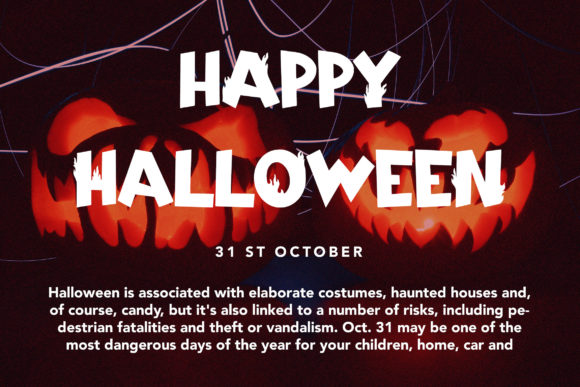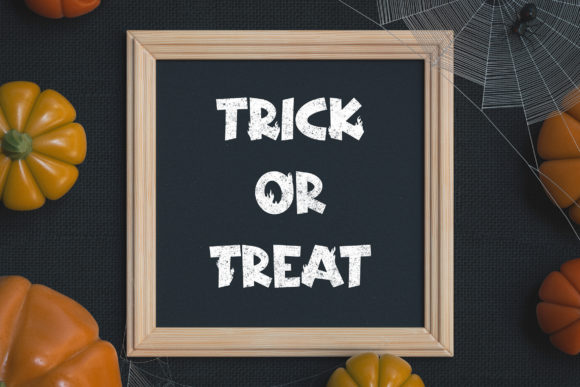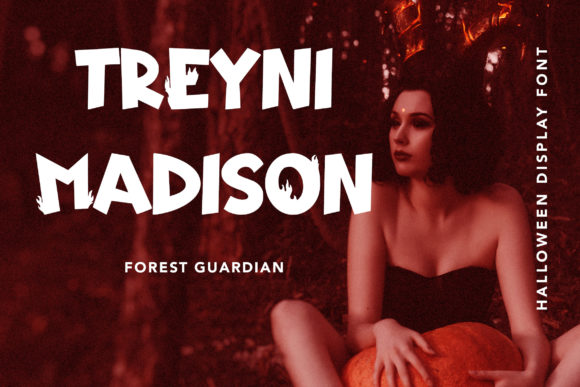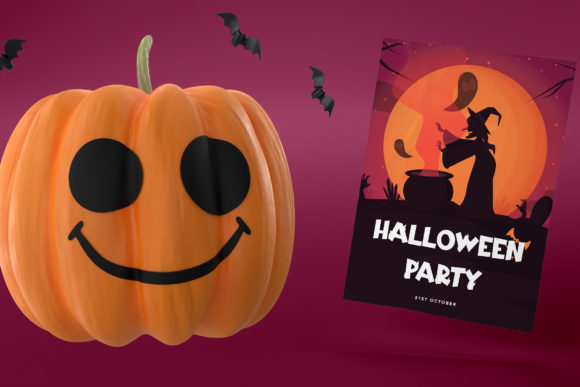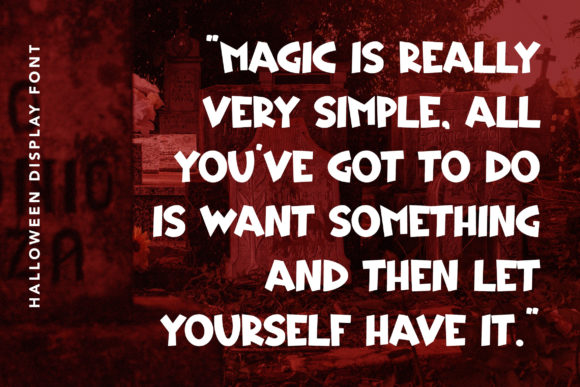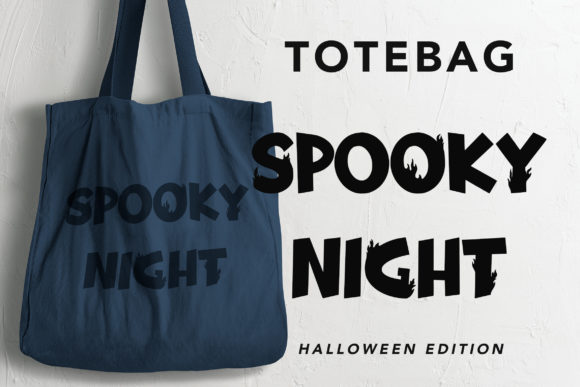
Unleash Creativity with Dark Flame Font: The Ultimate Display Font for Fun and Playful Designs
Are you a designer, crafter, or DIY enthusiast looking for a font that embodies playfulness and authenticity? Look no further than Dark Flame Font, a bold, fun, and uniquely designed display font that’s perfect for children activities, school projects, and any creative endeavor that requires a touch of whimsy. In this article, we’ll dive into the features and benefits of Dark Flame Font, and explore how it can elevate your designs and crafts.
What is Dark Flame Font?
Dark Flame Font is a bold, fun, and uniquely designed display font that’s sure to make a statement. With its playful and authentic vibe, this font is perfect for designs that require a touch of personality. Whether you’re creating a children’s activity book, a school project, or a craft tutorial, Dark Flame Font is the perfect choice.
One of the standout features of Dark Flame Font is its PUA (Private Use Area) encoding. This means that you can access all of the glyphs and swashes with ease, giving you maximum flexibility and creative control. With PUA encoding, you can easily insert special characters, ligatures, and other unique elements into your designs, taking them to the next level.
Key Features of Dark Flame Font
- Bold and playful design: Dark Flame Font is designed to make a statement, with bold lines and a playful vibe that’s sure to capture attention.
- PUA encoded: With PUA encoding, you can access all of the glyphs and swashes with ease, giving you maximum creative control.
- Unique and authentic style: Dark Flame Font embodies playfulness and authenticity, making it perfect for designs that require a touch of personality.
- Perfect for children activities and school projects: Whether you’re creating a children’s activity book or a school project, Dark Flame Font is the perfect choice.
How to Use Dark Flame Font in Your Designs
Dark Flame Font is incredibly versatile, and can be used in a wide range of designs and crafts. Here are a few ideas to get you started:
- Children’s activity books: Dark Flame Font is perfect for creating fun and engaging children’s activity books, including coloring books, workbooks, and more.
- School projects: Whether you’re a student or a teacher, Dark Flame Font is a great choice for school projects, including posters, presentations, and more.
- Craft tutorials: Dark Flame Font is also perfect for craft tutorials, including knitting patterns, sewing tutorials, and more.
- Signs and displays: With its bold and playful design, Dark Flame Font is also great for creating eye-catching signs and displays.
Tips and Tricks for Getting the Most Out of Dark Flame Font
Here are a few tips and tricks for getting the most out of Dark Flame Font:
- Experiment with different colors and textures: Dark Flame Font looks great in a wide range of colors and textures, so don’t be afraid to experiment and find the perfect combination for your design.
- Use it with other fonts: Dark Flame Font pairs well with a wide range of other fonts, so feel free to get creative and combine it with other fonts to create a unique look.
- Take advantage of PUA encoding: With PUA encoding, you can access all of the glyphs and swashes with ease, giving you maximum creative control.
Dark Flame Font is a bold, fun, and uniquely designed display font that’s perfect for designers, crafters, and DIY enthusiasts. With its playful and authentic vibe, PUA encoding, and versatility, it’s the perfect choice for any creative endeavor that requires a touch of whimsy. Whether you’re creating a children’s activity book, a school project, or a craft tutorial, Dark Flame Font is sure to make a statement.